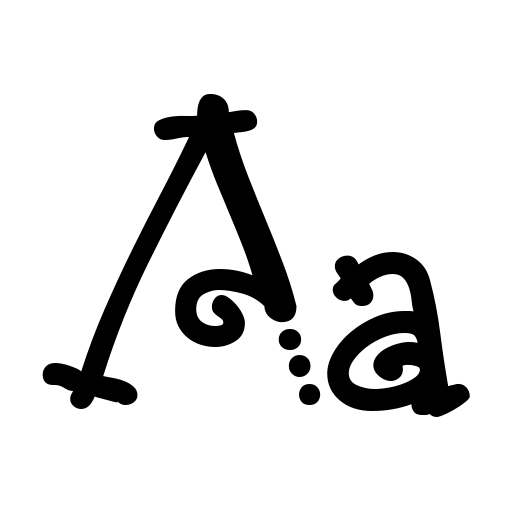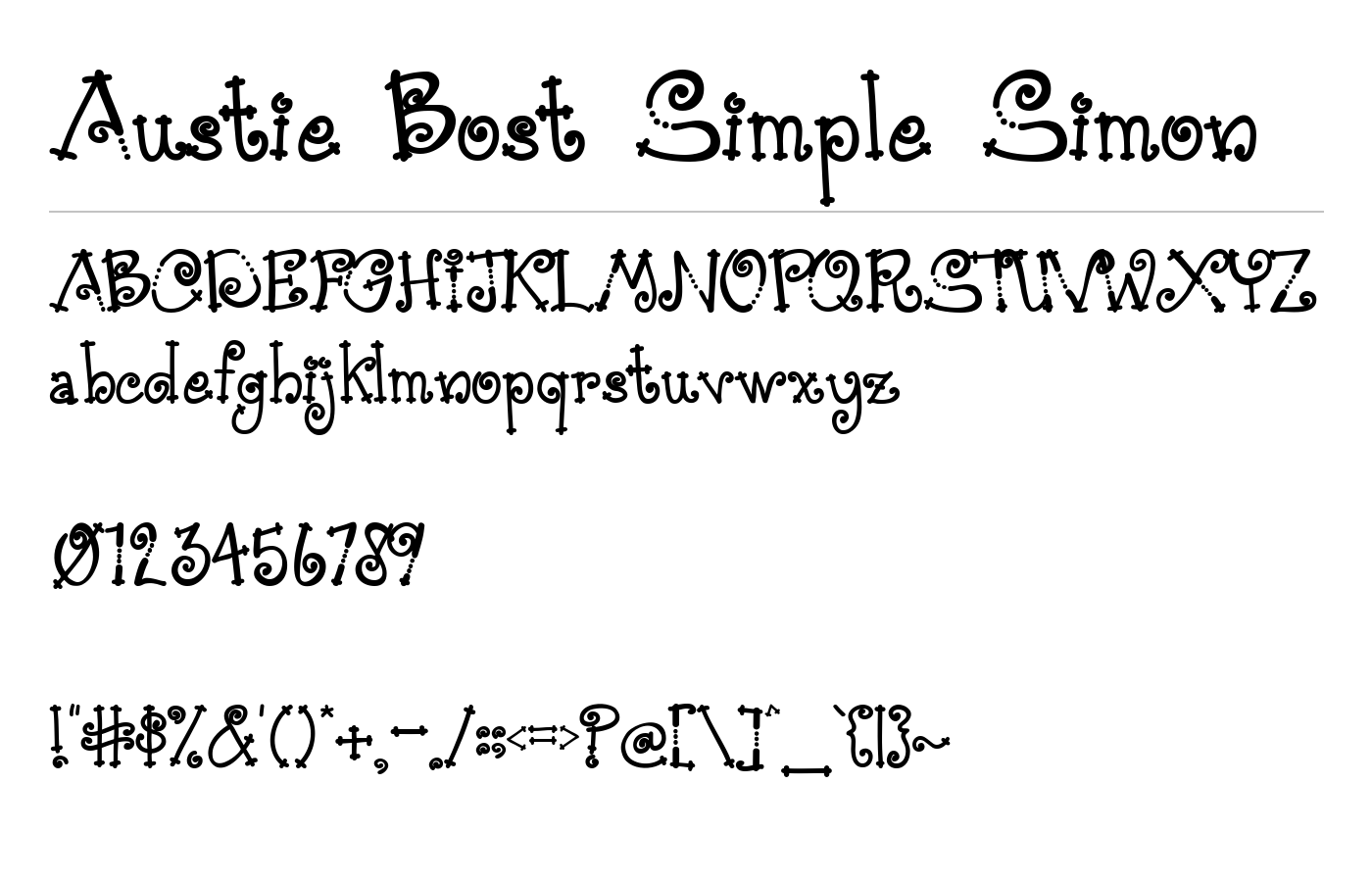
Austie Bost Simple Simon is a playful, whimsical serif font with a hand-drawn feel, featuring quirky curls and decorative dots that add charm and character. Its medium weight and upright posture make it eye-catching and fun, perfect for creative projects looking to convey a lighthearted, informal tone. This font works especially well for children’s books, invitations, or any design needing a joyful and unique personality.
Austie Bost Simple Simon Font
About Austie Bost Simple Simon Font
| Font family | Austie Bost Simple Simon Font |
| Designer | Austin Owens |